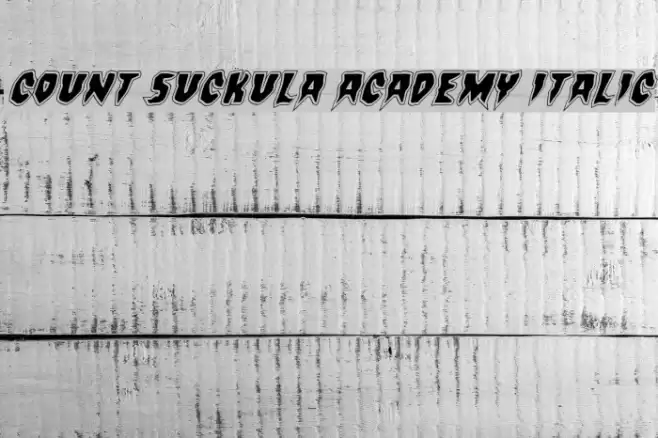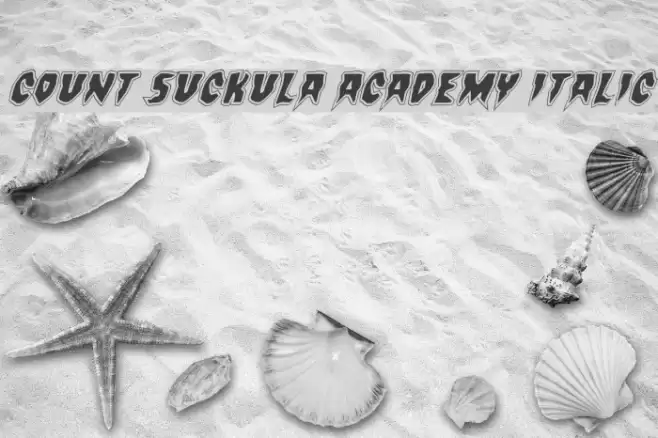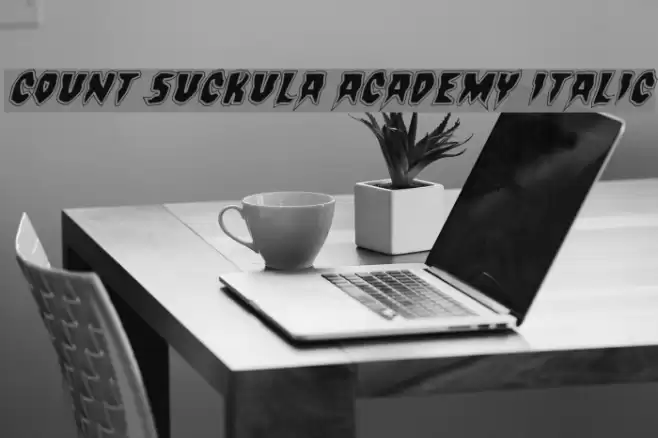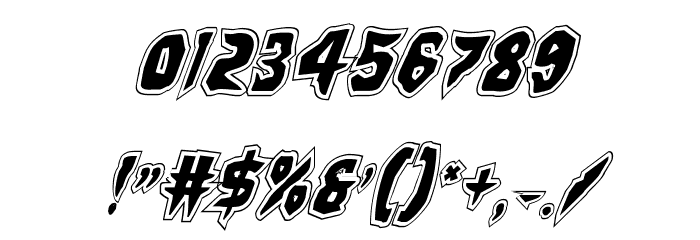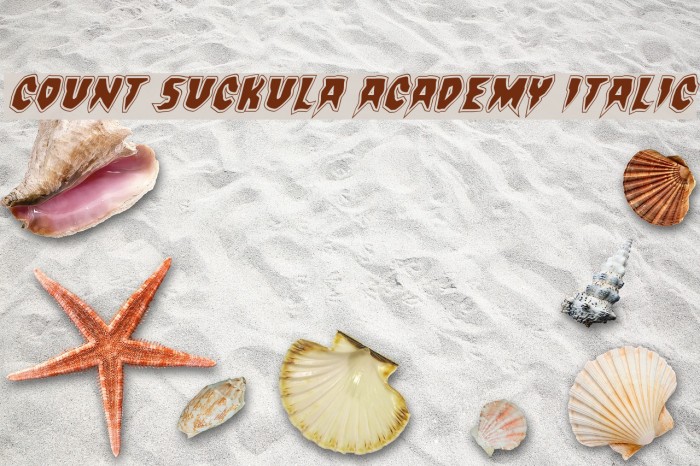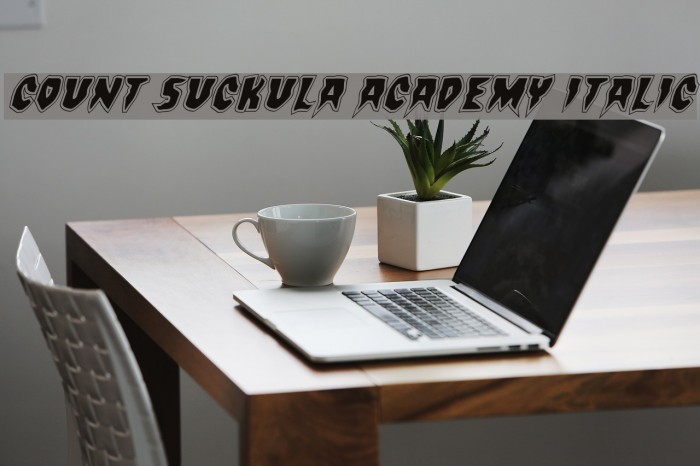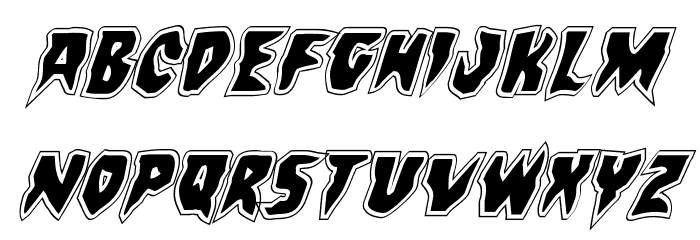
Count Suckula Academy Italic Font
Count Suckula Academy Italic Description
This font features a bold and dynamic style with sharp, jagged edges that give it a striking and energetic appearance. The letters are outlined with a thick border, enhancing their visibility and adding a sense of depth. The italic slant adds a sense of motion and urgency, making it ideal for attention-grabbing designs. The characters are tightly spaced, contributing to its compact and impactful look. The numbers and special characters maintain the same bold and edgy style, ensuring consistency across all elements.
A bold, jagged, and italic font with a dynamic and energetic style from Horror fonts.
- Proposed Projects: Perfect for Halloween-themed designs, edgy posters, video game titles, or any project requiring a bold and dramatic typeface.
- Character Spacing: Tight